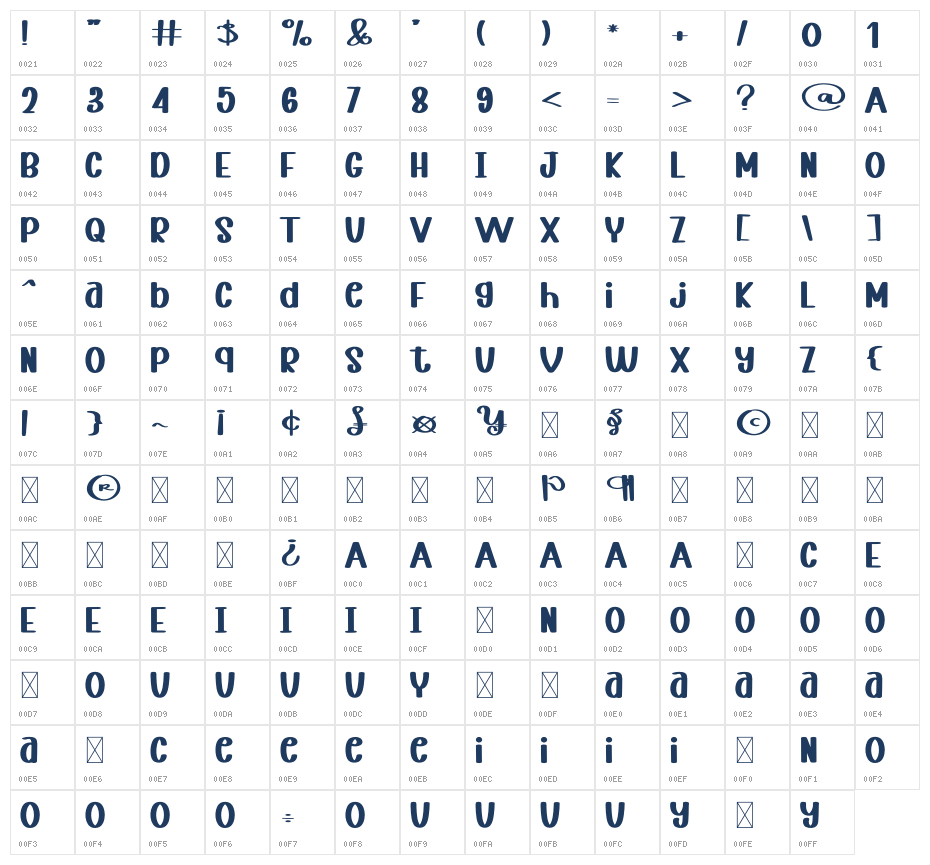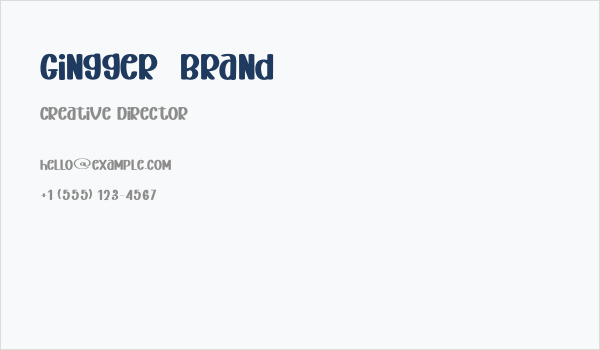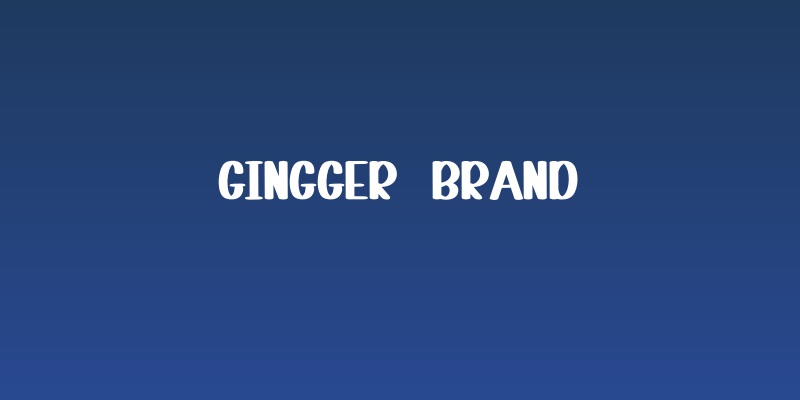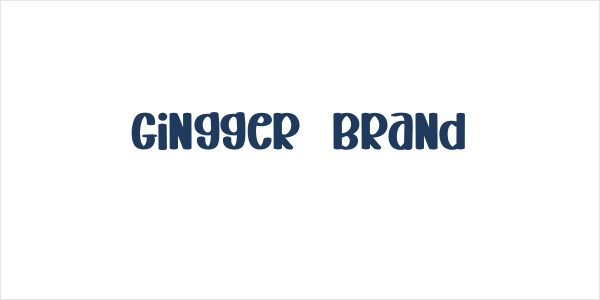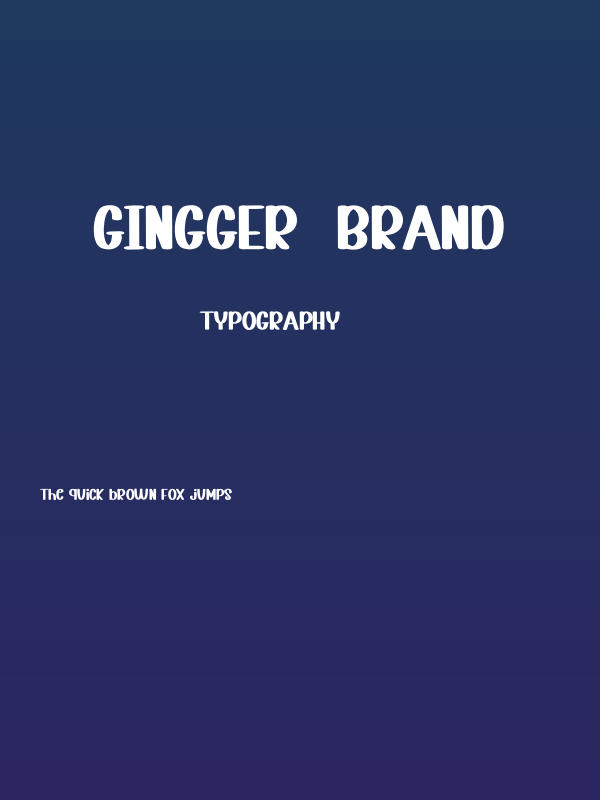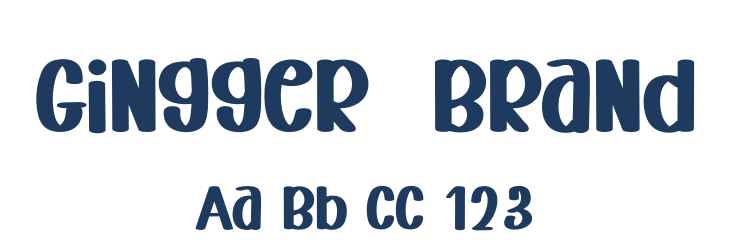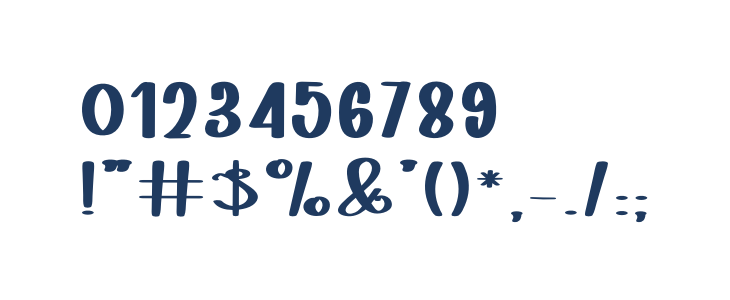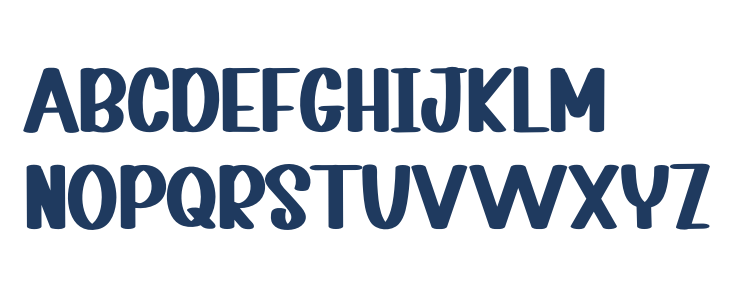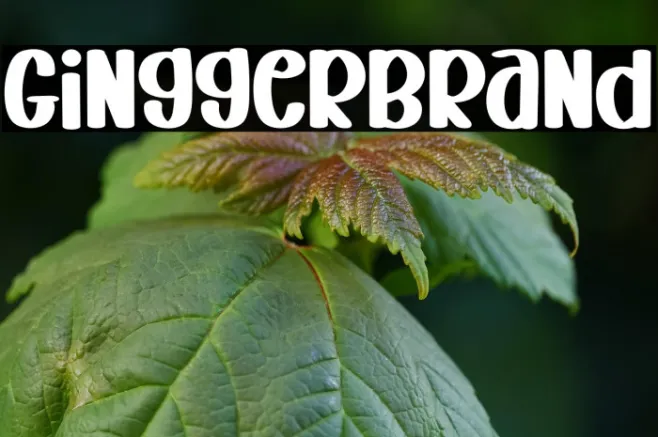
Gingger Brand Font
Gingger Brand Description
Bold, playful, rounded sans-serif font with a casual and friendly appearance.
| Overall Style | Casual, Playful, Friendly |
| Use Case | Headlines, Logos, Posters, Children's products |